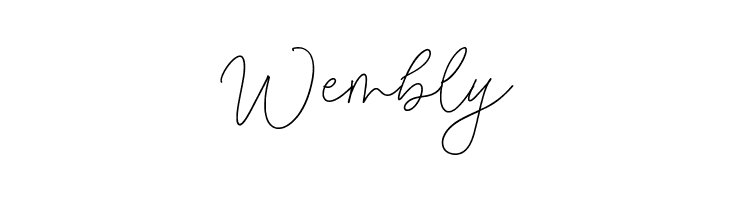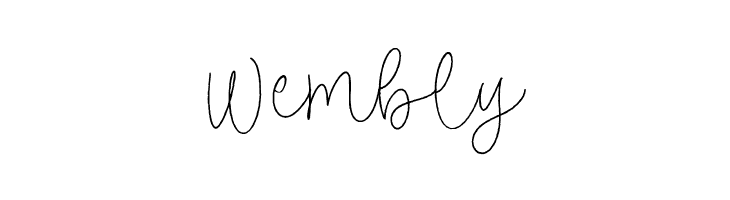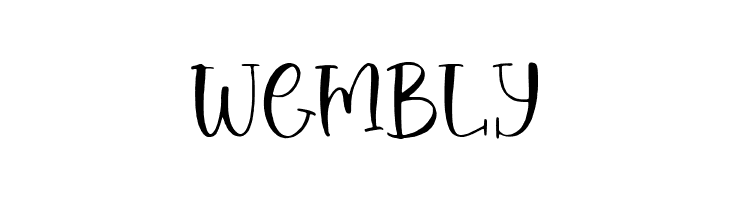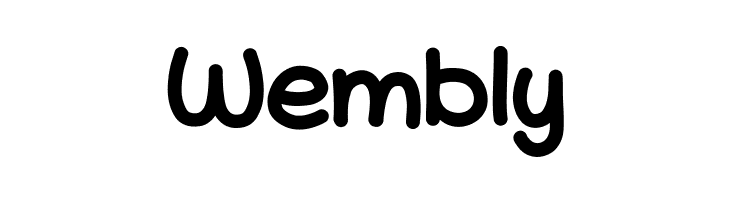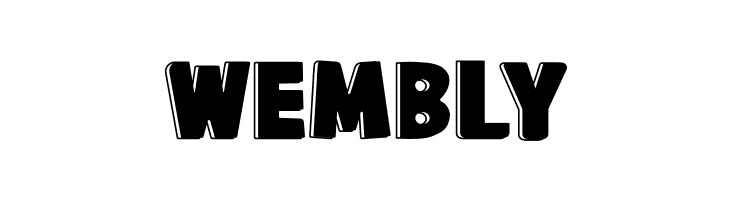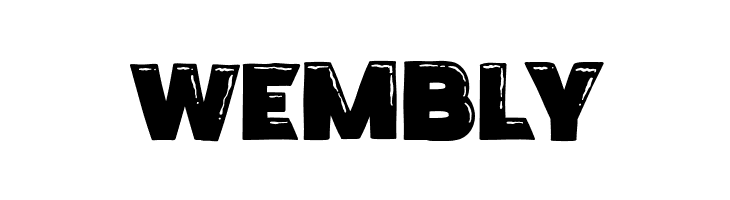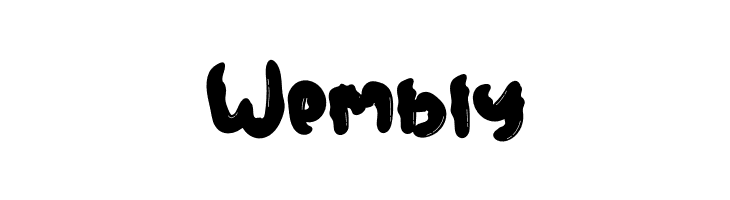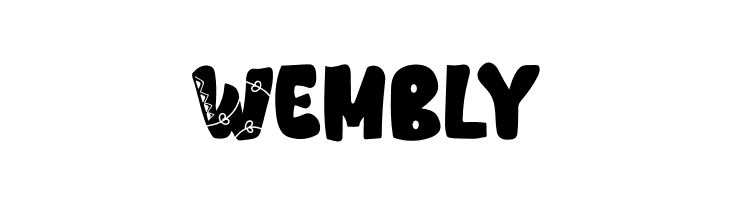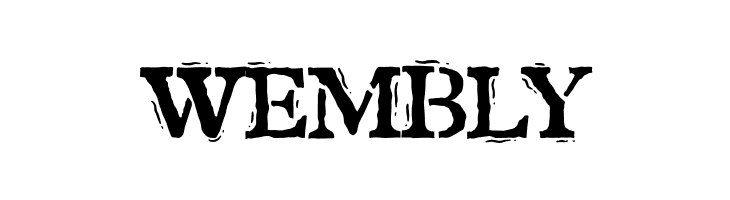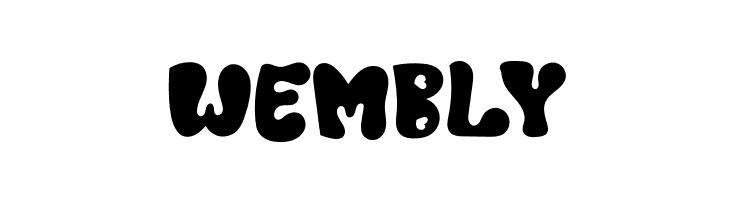
An elegant, cursive font with a handwritten style and smooth, flowing curves.
A playful, cursive script font with a hand-drawn, whimsical style.
A playful, handwritten font with quirky details and a whimsical style.
A playful, hand-drawn font with tall, narrow letters and a whimsical style.
A playful, rounded font with bold, smooth curves and a friendly appearance.
A playful, rounded font with bold, smooth curves and consistent thickness.
A bold, playful font with rounded characters and a dynamic slant.
A bold, distressed font with a vintage, rugged texture.
A bold, playful, hand-drawn font with thick, rounded characters.
A bold, decorative font with playful patterns and a lively style.
A bold, distressed font with a vintage, rugged appearance.
A bold, gothic-style font with intricate, medieval-inspired details.
A bold, playful font with rounded, bubbly characters and a retro-modern style.
A playful, rounded font with a handwritten, casual style.
A bold, graffiti-style font with dynamic, angular strokes and an urban aesthetic.
A playful, handwritten font with bold, flowing curves and a whimsical style.
A playful, rounded font with a whimsical and creative style.
A playful and whimsical script font with smooth, interconnected letters.
A playful, hand-drawn font with bold, textured characters.
A playful, handwritten font with bold, rounded characters and a whimsical style.
A playful, handwritten font with bold, smooth strokes and a whimsical style.
A playful, handwritten font with rounded edges and a casual style.
A fluid, cursive script font with elegant, flowing lines.
A playful, bold, and handwritten-style font with rounded characters.
A flowing, cursive script font with elegant, interconnected strokes.
A playful and dynamic font with bold uppercase and casual lowercase characters.
A whimsical, decorative font with tall, narrow letters and elegant loops.
A dynamic and fluid script font with elegant, flowing letterforms.
A playful, hand-drawn style font with tall, narrow characters and medium contrast.
A playful, elegant script font with a handwritten, whimsical style.
A playful, bold, and hand-drawn font with rounded edges and a whimsical style.
A bold, playful handwritten font with dynamic strokes.
A playful, casual handwritten font with irregular strokes and a whimsical appearance.
An elegant, flowing script font with ornate uppercase and harmonious lowercase characters.
A playful and energetic script font with a handwritten feel.